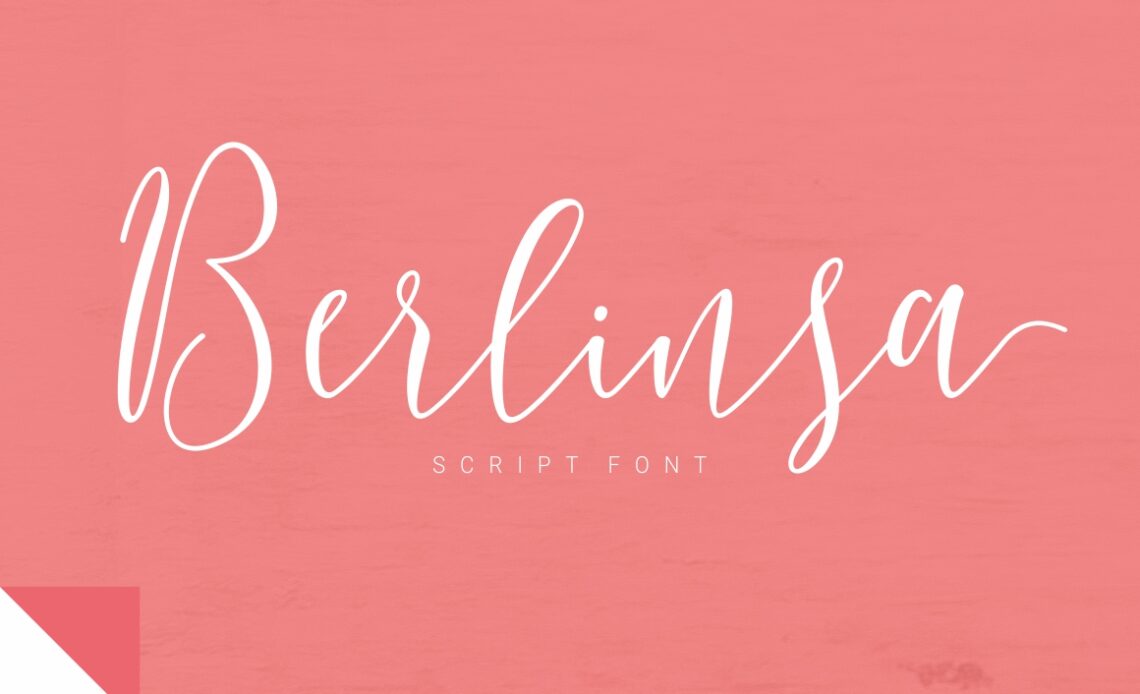
Welcome to the world of Berlinsa Script, a captivating handwritten font family designed to evoke elegance and charm in your digital creations. With its smooth, flowing characters, Berlinsa Script adds a touch of sophistication to any project, making it the perfect choice for those seeking a font that exudes both beauty and personality.
Unleash your creativity with Berlinsa Script's versatility, seamlessly adapting to a wide range of design styles. From heartfelt love letters and captivating invitations to eye-catching social media posts and stunning branding materials, Berlinsa Script effortlessly enhances your words with a touch of magic.
Dive into the world of Berlinsa Script and let your imagination soar. Its delicate strokes and graceful curves bring an enchanting touch to any design, transforming ordinary words into works of art. Whether you're a seasoned designer or just starting your creative journey, Berlinsa Script is the key to unlocking your artistic potential.
Immerse yourself in the charm of Berlinsa Script and discover the power of a font that speaks to the heart. With its ability to evoke emotions and create lasting impressions, Berlinsa Script is more than just a collection of letters; it's a gateway to a world of creativity and self-expression.
So, why settle for ordinary when you can elevate your designs with the allure of Berlinsa Script? Embark on a creative odyssey and experience the transformative power of a font that captivates and inspires. Embrace the beauty of Berlinsa Script today and watch your words blossom into a symphony of visual delight.